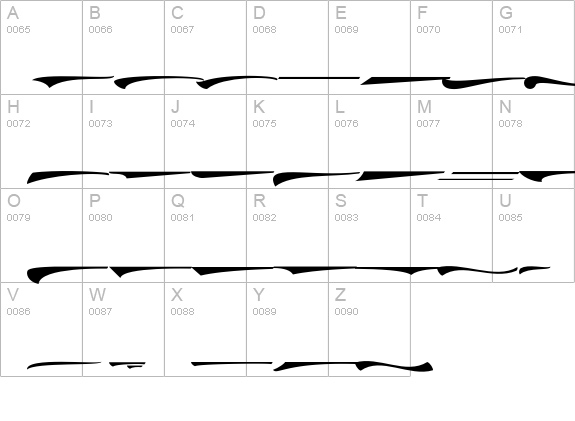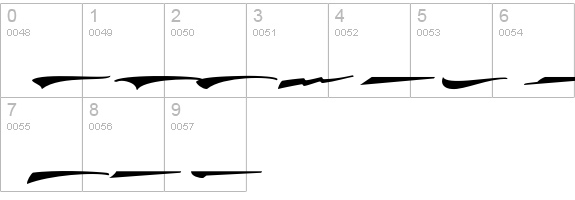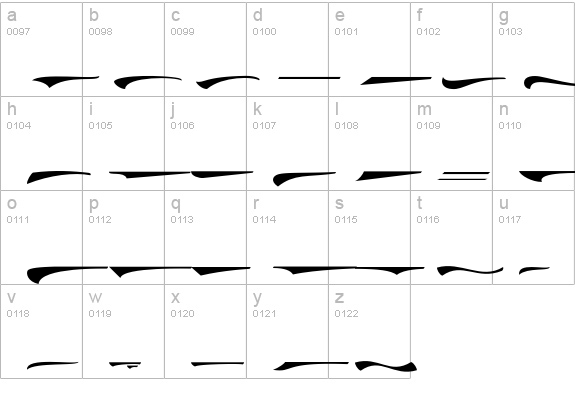
Doedel Swash font is a whimsical and charming typeface that brings a touch of elegance and playfulness to any design project. With its graceful curves and stylish swashes, this font exudes a sense of sophistication and creativity. The unique and intricate details of Doedel Swash make it perfect for branding, invitations, and other creative endeavors. And the best part? Doedel Swash font is available for free download at FontsMarket.com. Whether you're a designer looking to add a special touch to your work or someone who simply appreciates beautiful typography, Doedel Swash is sure to inspire and delight. Download this stunning font today and let your creativity soar!